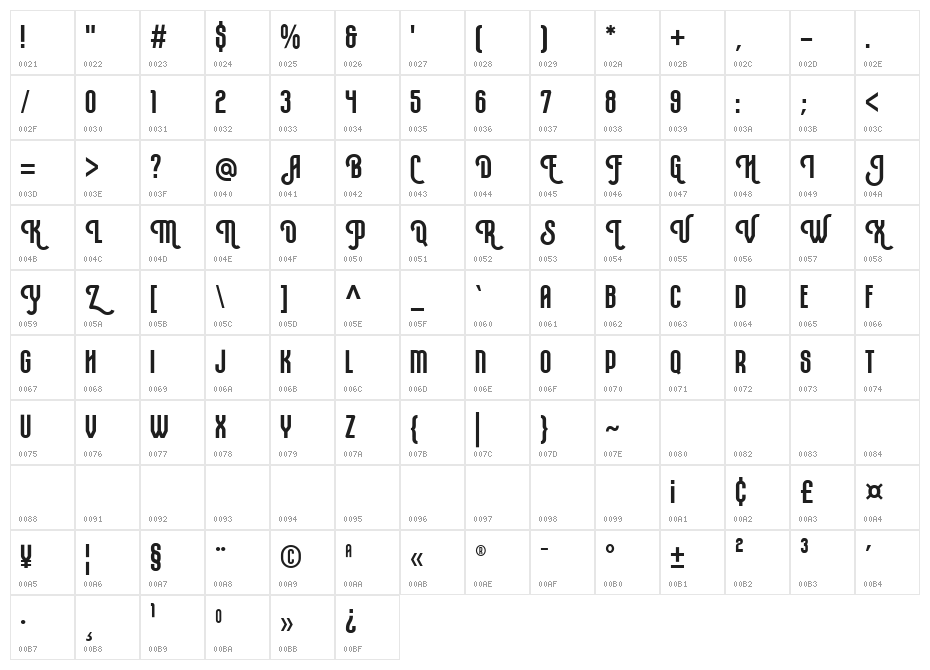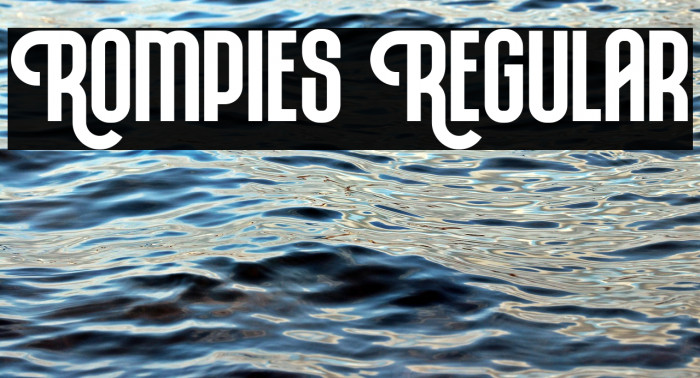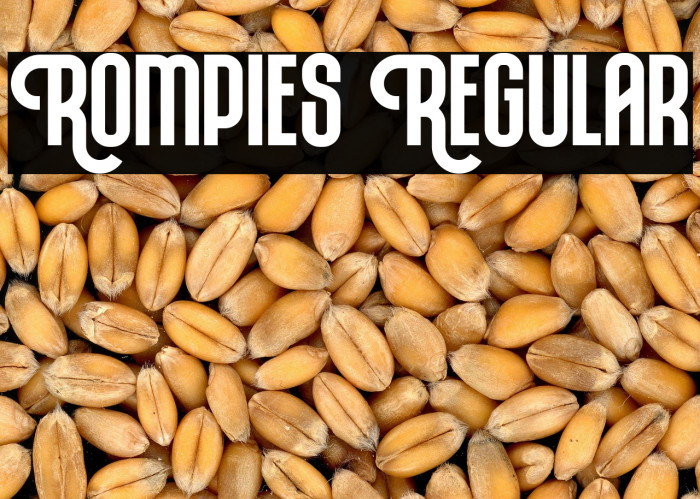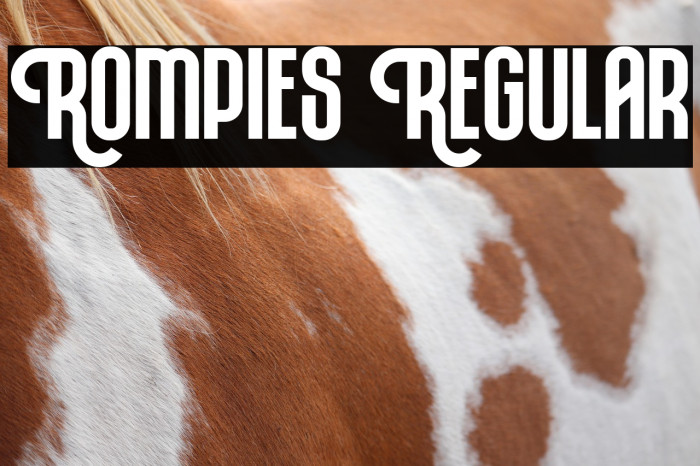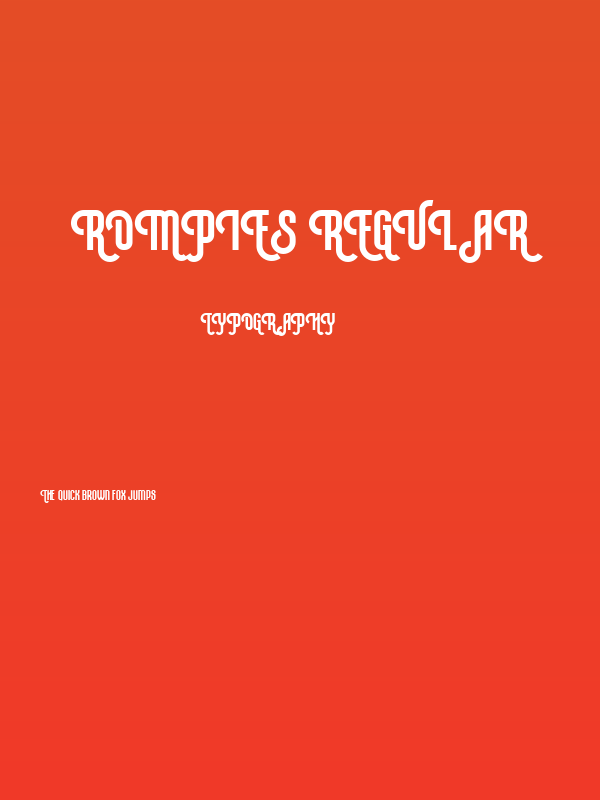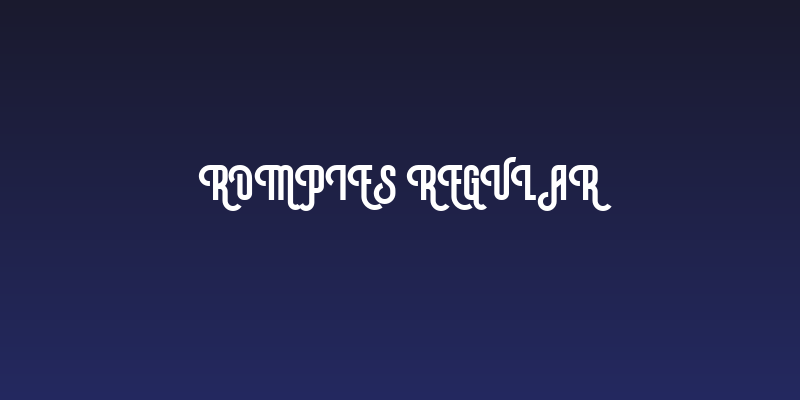
Rompies Regular Font
Rompies Regular Description
This font features a bold and striking design with a unique blend of modern and vintage elements. The uppercase letters exhibit a decorative flair with curved and angular strokes, creating a dynamic and eye-catching appearance. The lowercase letters maintain a consistent style, complementing the uppercase with a slightly more subdued yet equally engaging look. The numerals are bold and clear, ensuring readability while maintaining the overall aesthetic. Special characters are thoughtfully designed to match the font's distinctive style, making it suitable for a variety of creative applications.
| Overall Style | Modern, Vintage |
| Proposed Projects | Ideal for branding, poster design, headlines, and any project requiring a bold, decorative touch. |